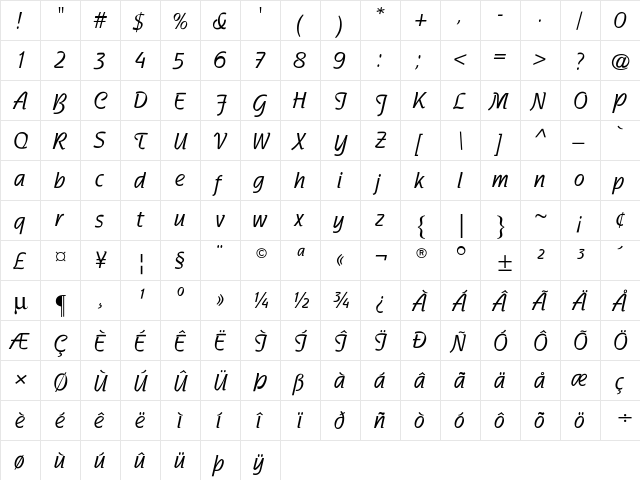
ATNadianne-MediumCondensed
Design Context for ATNadianne-MediumCondensed Typeface
ATNadianne-MediumCondensed is a composed and adaptable typeface that performs quietly and consistently across a wide range of design contexts. The condensed width makes it efficient for tight spaces without sacrificing legibility.